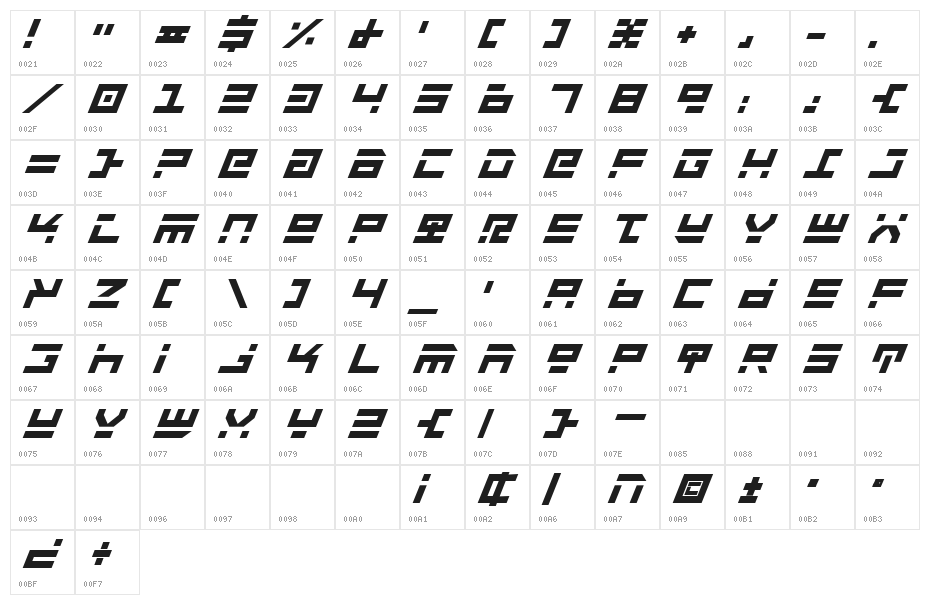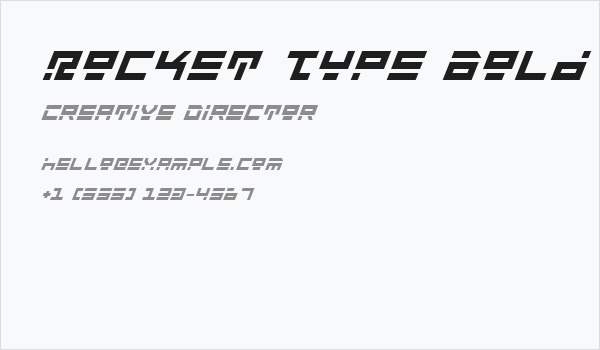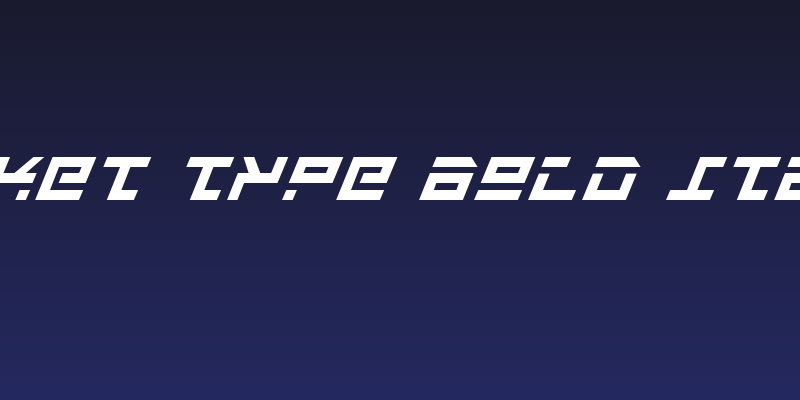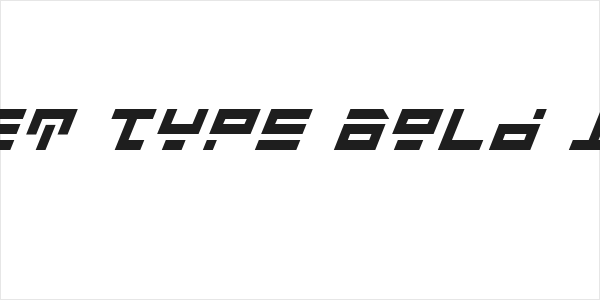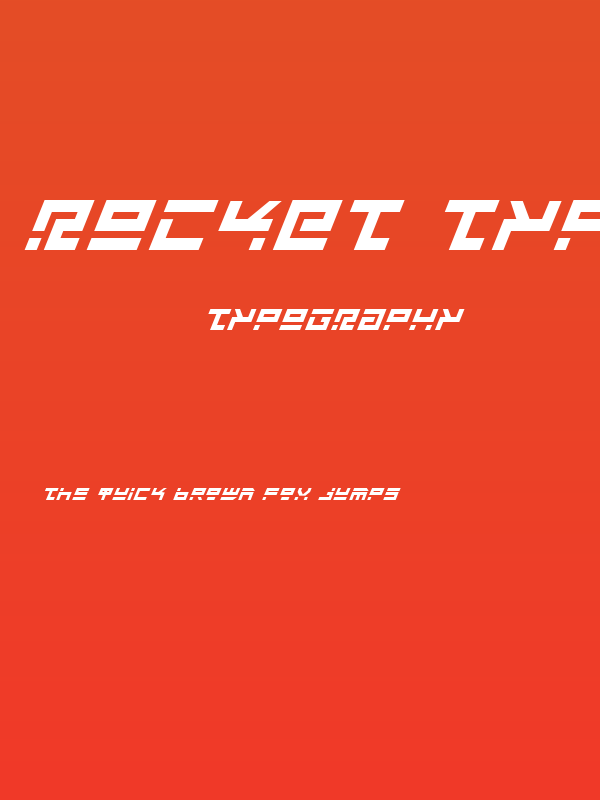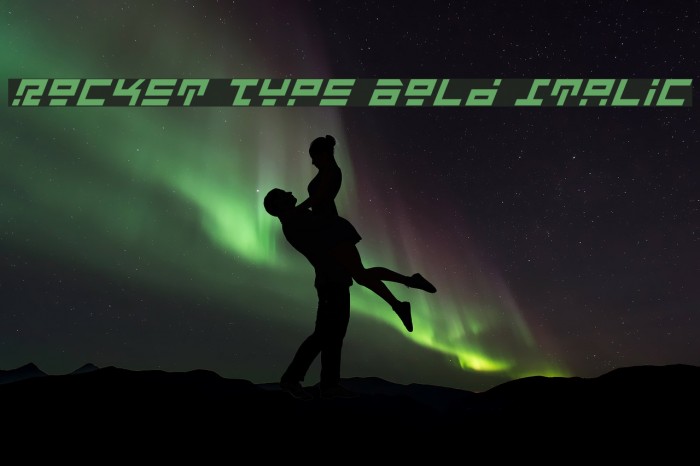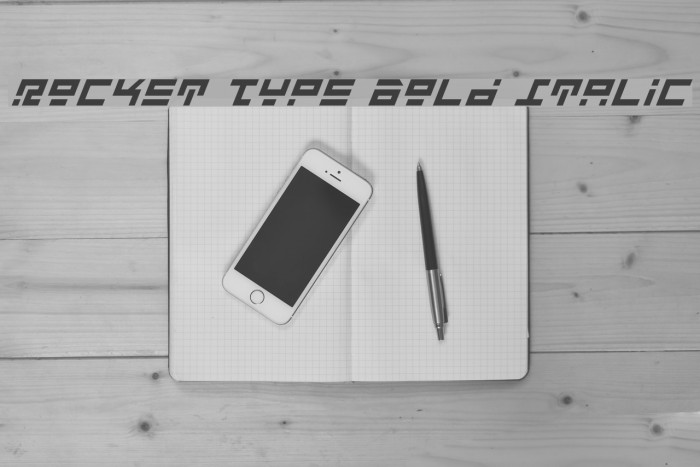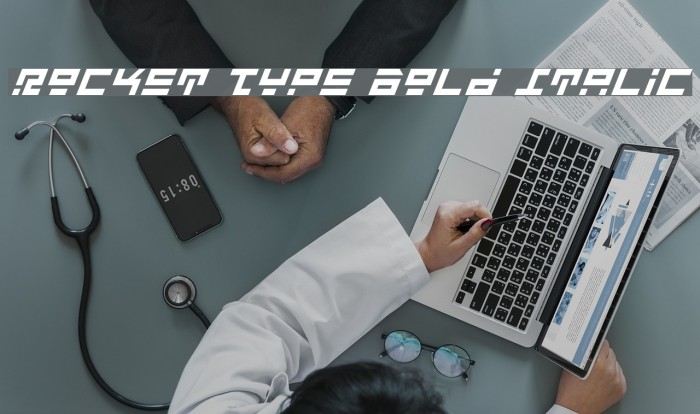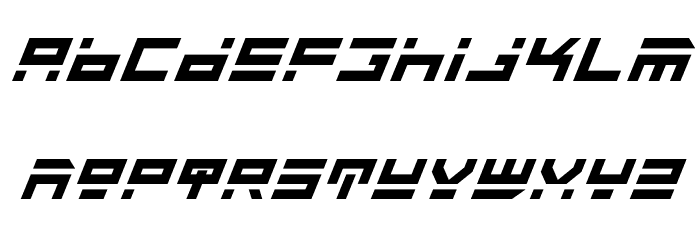
Rocket Type Bold Italic Font
Rocket Type Bold Italic Description
This font features a bold and italicized style with a futuristic and dynamic appearance. The characters are angular and geometric, giving a sense of movement and speed. The strokes are thick and consistent, providing a strong visual impact. The design incorporates sharp edges and slanted lines, which contribute to its modern and tech-inspired aesthetic. The uppercase and lowercase letters maintain a cohesive look, while the numerals and special characters align with the overall theme. This font is ideal for projects that require a bold and striking visual presence.
| Proposed Projects | Ideal for technology branding, sci-fi posters, video game titles, and modern advertising. |